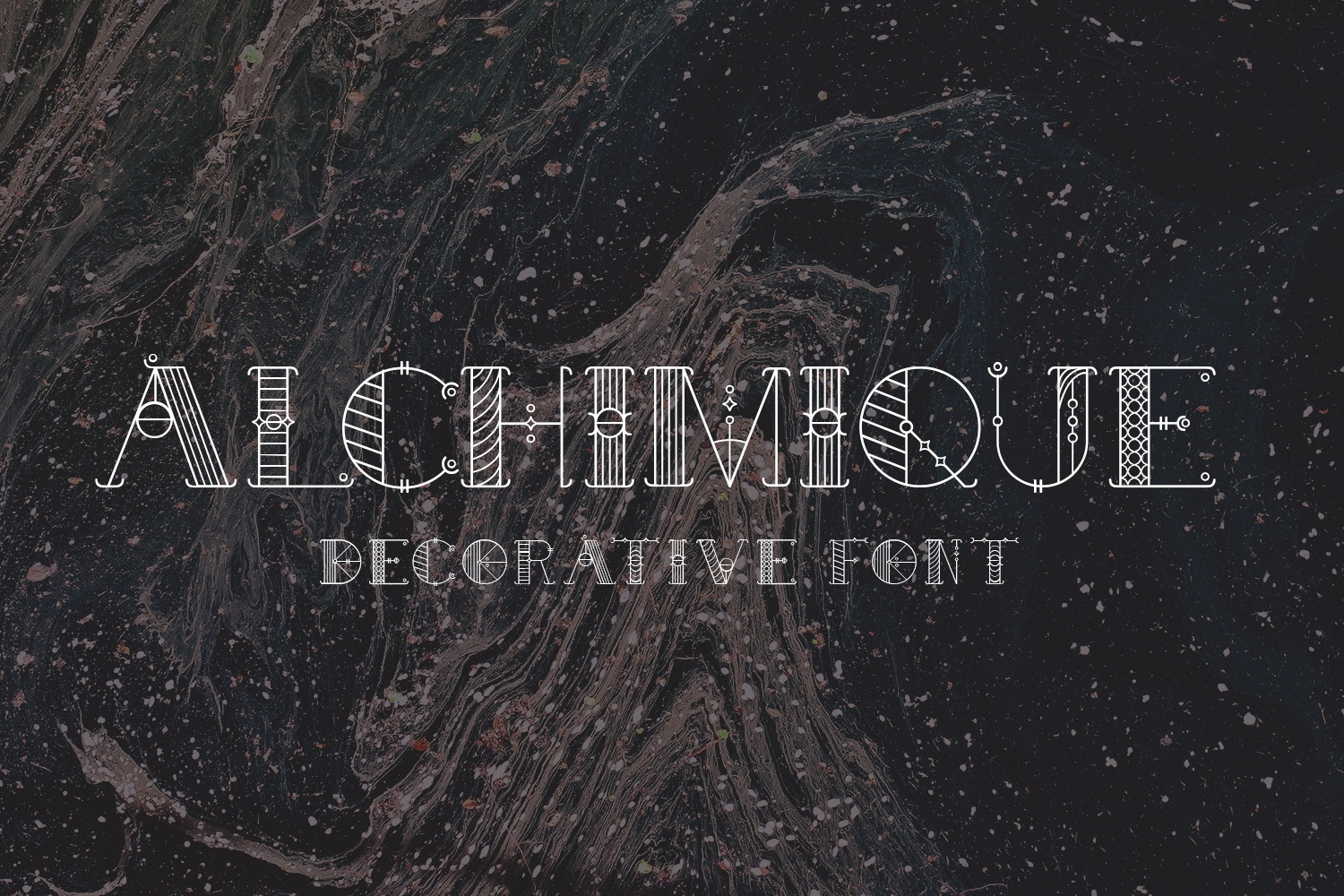
Alchimique Decorative Font
Alchimique Decorative Font is perfect for mystical brand logos, occult bookstore signage, medieval fantasy gaming, esoteric publication covers, spiritual wellness centers, witchcraft-themed merchandise, historical fiction novels, alchemy-inspired artwork, gothic event invitations, and mysterious atmosphere designs.
What makes Alchimique Decorative Font so exciting is its enchanting blend of medieval mysticism and ornate craftsmanship that perfectly captures the secretive world of ancient alchemy through intricate letterforms adorned with mystical flourishes and arcane symbols. This typeface embodies the essence of esoteric knowledge through its elaborate decorative elements and mysterious character that immediately transports viewers into realms of magic, transformation, and hidden wisdom. The font's captivating appeal stems from its ability to convey ancient mysteries, spiritual depth, and transformative power while maintaining readability for modern mystical and fantasy applications.
Alchimique Decorative Font comes in multiple ornamental styles including Regular, Ornate, Shadow, and Illuminated variations, featuring extensive alchemical symbols, mystical ornaments, and medieval-inspired decorative elements that provide unlimited creative possibilities for esoteric and fantasy design projects.
Whether you're developing mystical brand identities, creating fantasy gaming materials, or designing occult publication layouts, Alchimique Decorative Font Free Download delivers authentic magical atmosphere and medieval authenticity. This extraordinary typeface excels across all mystical applications, from intimate tarot card designs to large-scale fantasy event banners, maintaining its alchemical character while ensuring message clarity. The font's elaborately crafted letterforms include intricate details and mystical embellishments that create text with genuine occult personality and medieval manuscript authenticity.
Fantasy designers and mystical businesses consistently choose Alchimique Decorative Font for projects requiring authentic esoteric appeal and medieval magical positioning. Its ornate styling makes it particularly effective for occult shops, fantasy gaming companies, spiritual practitioners, and entertainment brands seeking to communicate mystery, ancient wisdom, and transformative experiences. The font's mystical personality and alchemical authenticity create immediate connection with audiences interested in esoteric knowledge while communicating values of ancient wisdom, spiritual transformation, and hidden mysteries that are essential for brands targeting mystical and fantasy market segments.